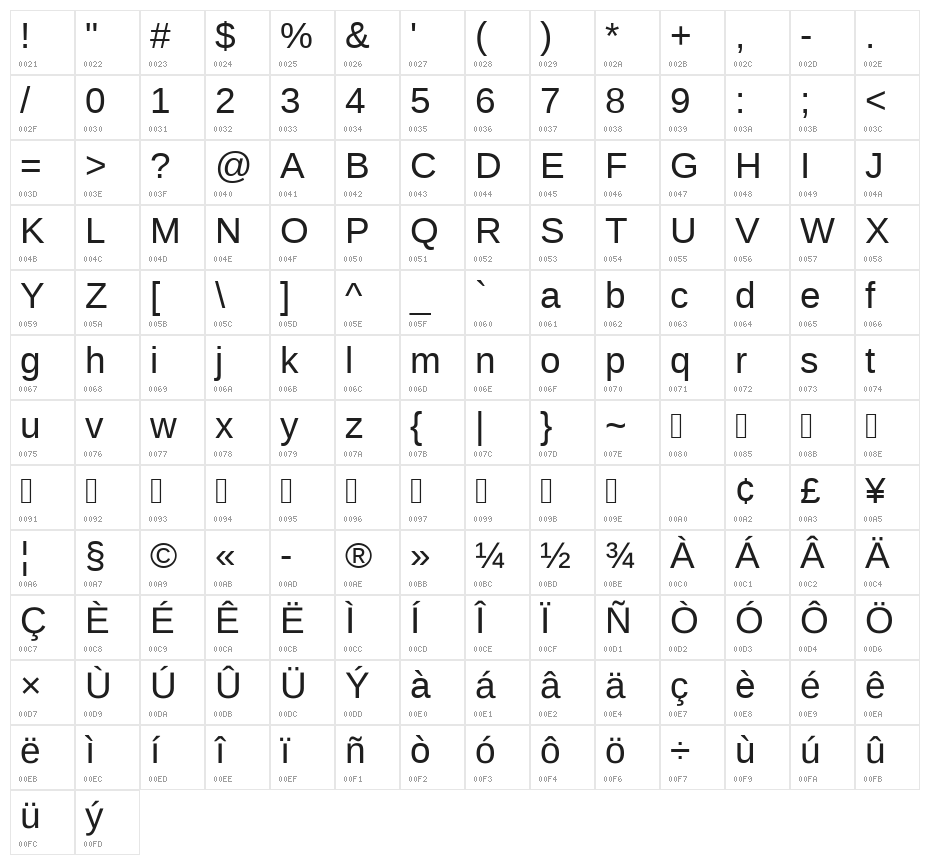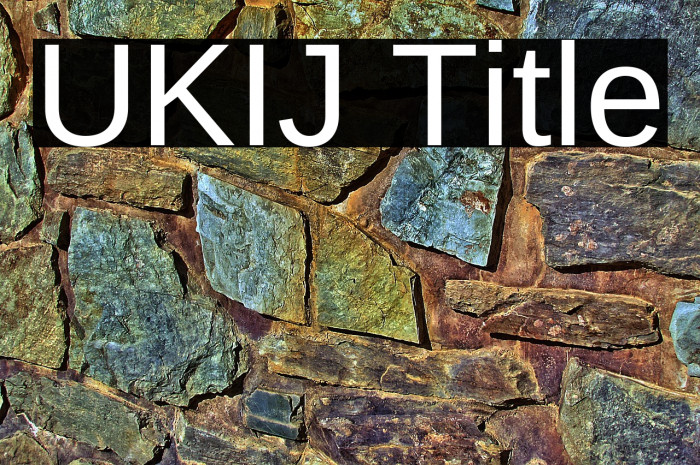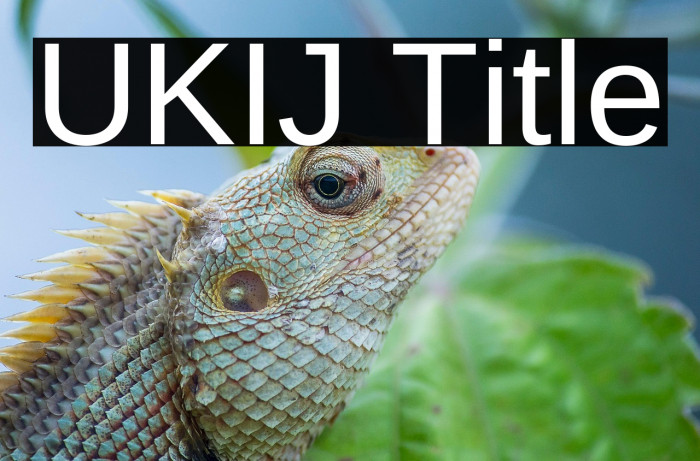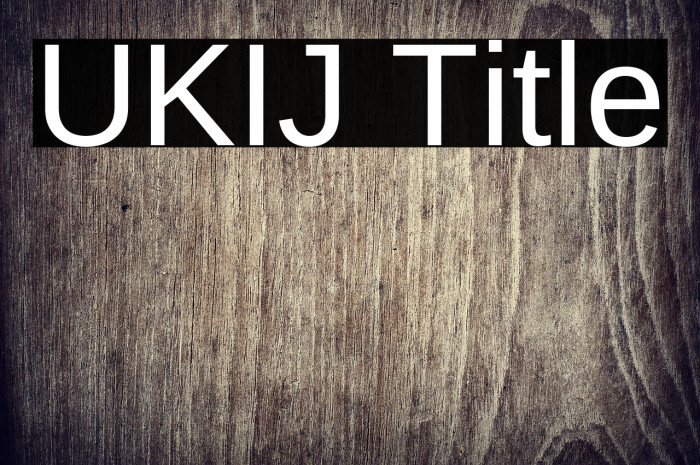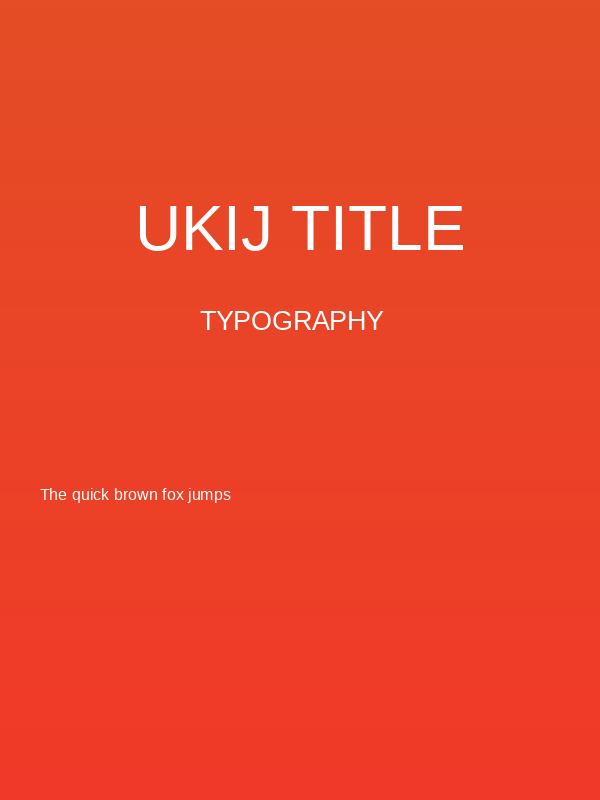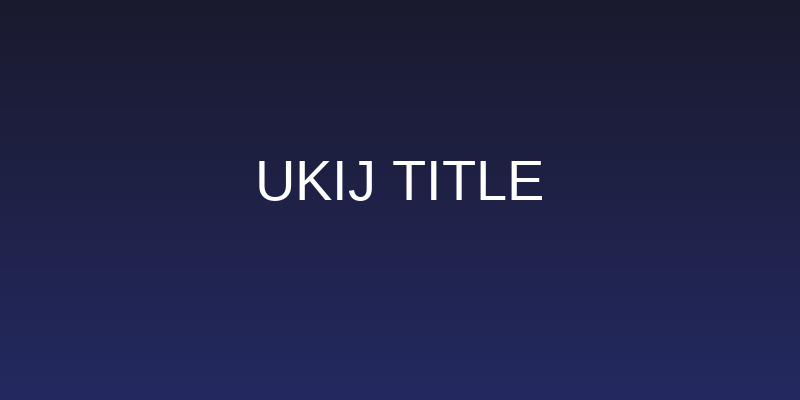
UKIJ Title Font
UKIJ Title Description
This typeface features a clean and modern sans-serif design, characterized by its simplicity and readability. The letters are evenly spaced with a consistent stroke width, providing a balanced and harmonious appearance. The uppercase and lowercase letters maintain a uniform height, contributing to its sleek and professional look. The numerals and special characters are designed to complement the alphabet, ensuring clarity and legibility across various applications. This font is versatile, making it suitable for both digital and print media.